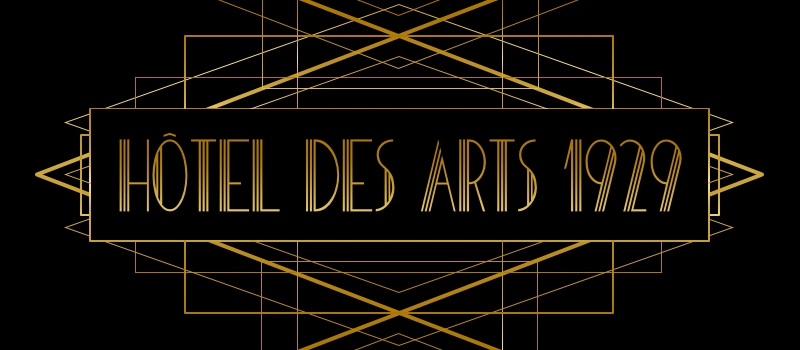
This font is an Art Deco-styled typeface inspired by the architecture of the 1920s and 1930s. This set is only composed of uppercase letters (some are also available with accents), numbers 0-9 and basic punctuation. It should preferably be used for headlines or texts with a rather high size considering that it is an uppercase font and that it isn't designed for small sizes. This font is 100% FREE for personnal/non-profit use, please contact me otherwise. If you appreciated my work and you are wishing to support me please consider making a donation. Enjoy and don't hesitate to contact me if there is any problem ! --------- E-mail : johan.chalibert[at]icloud.com |